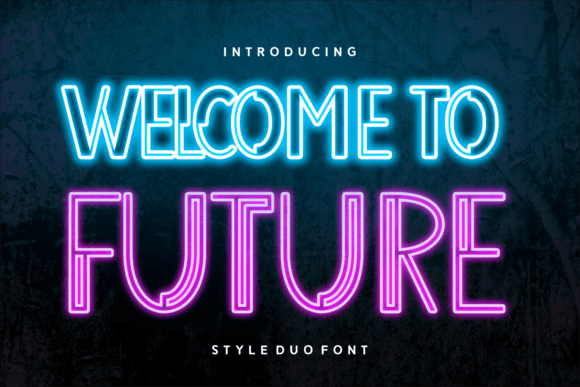
Prepare to be mesmerized by Welcome to Future, the display font that will catapult your creations into the realm of the extraordinary. Its striking lines and captivating curves dance across the page, inviting you to experience a typographic masterpiece.
Indulge in the allure of a font designed to make your words shine. Welcome to Future empowers you to craft book covers that captivate the imagination, posters that ignite the soul, and branding that leaves an unforgettable mark. Its bold and expressive characters command attention, ensuring your message resonates with clarity and impact.
Embrace the future of typography with Welcome to Future. Its versatility knows no bounds, seamlessly adapting to an array of design styles. Whether you seek a touch of elegance, a dash of modernity, or a splash of whimsy, this font delivers it all. Prepare to be transported to a world where your creativity knows no limitations.
Welcome to Future is not just a font; it's an invitation to unleash your inner artist. Its carefully crafted details and harmonious flow will elevate your designs to new heights. Experience the joy of creating with a font that truly understands the power of expression.
Dare to embrace the extraordinary with Welcome to Future. Its timeless beauty and captivating presence will transform your creative endeavors into unforgettable works of art. Your journey to typographic greatness awaits!